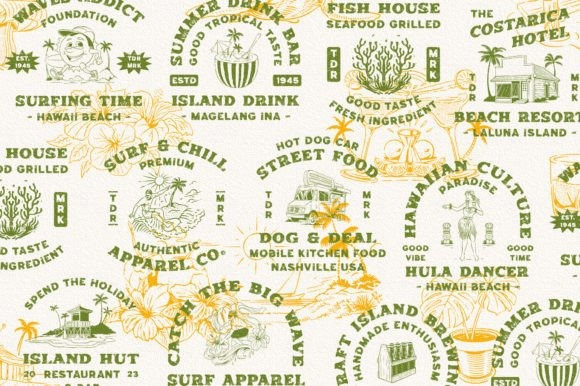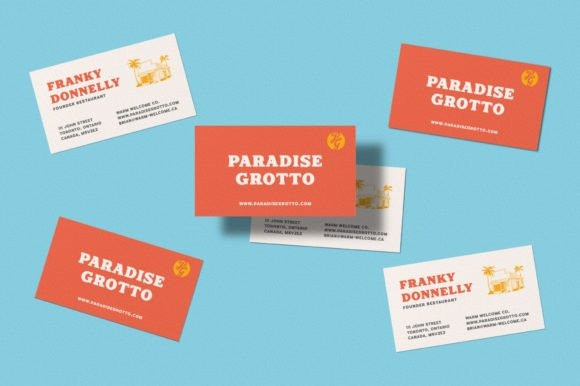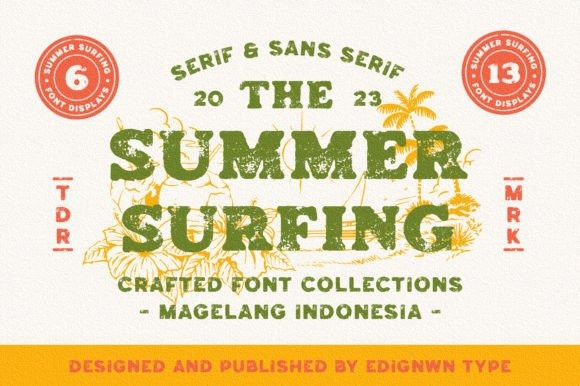
Summer Surfing Font
Summer Surfing Vintage Font is an attractive and exquisite duo font that combines the best of both worlds: a classic and timeless serif font with a modern and versatile sans-serif font. The result is a perfect balance of tradition and innovation, offering endless design possibilities. Ideal for branding, editorial design, and any project that requires a font with both sophistication and versatility.